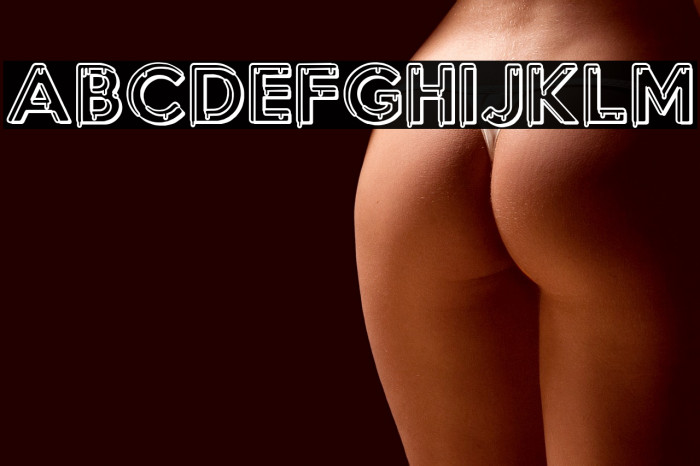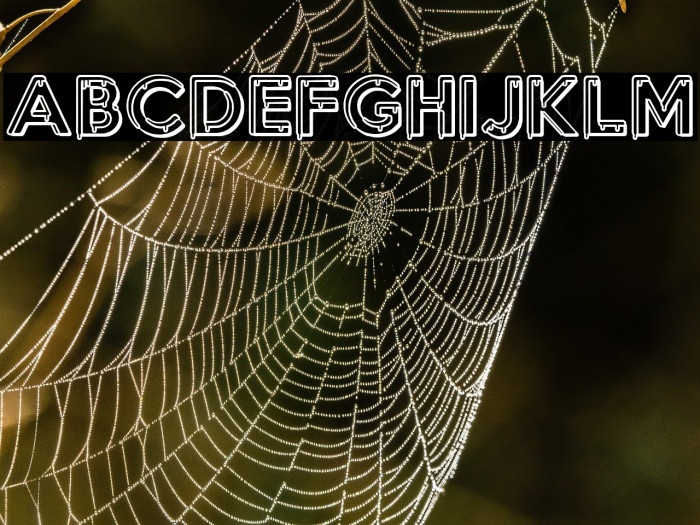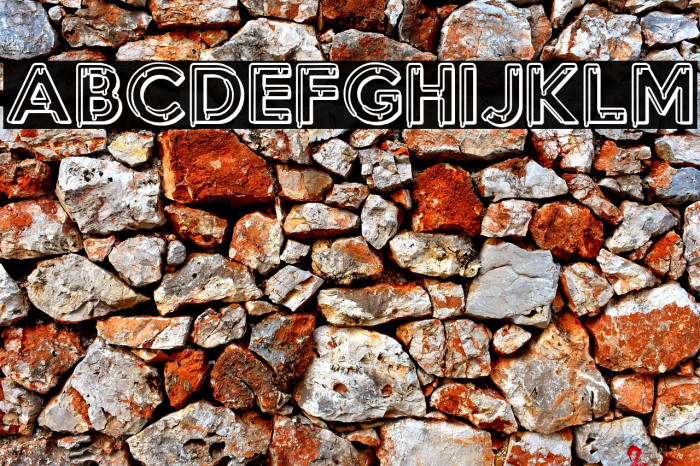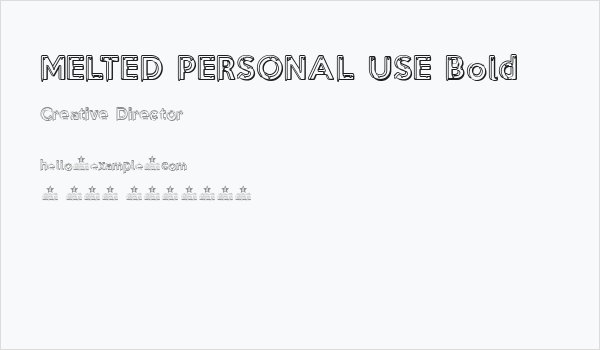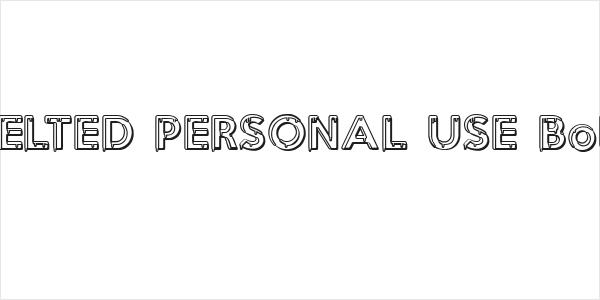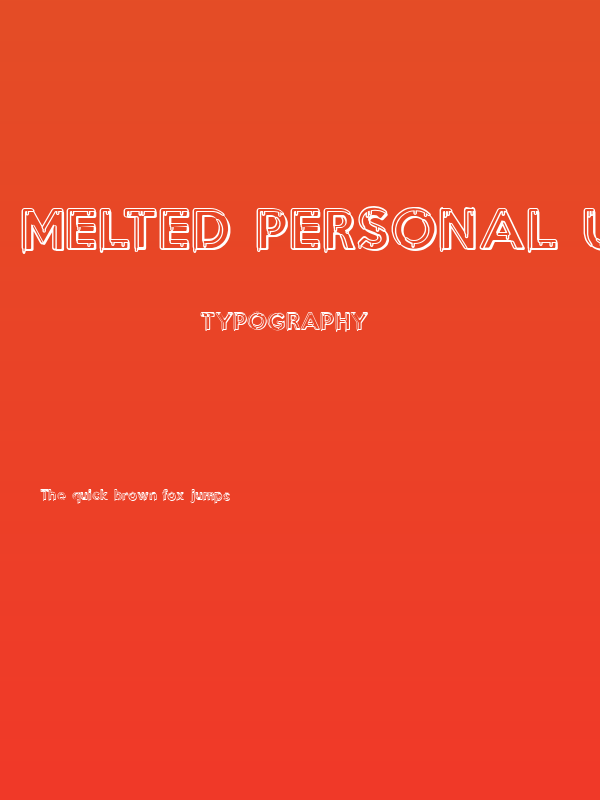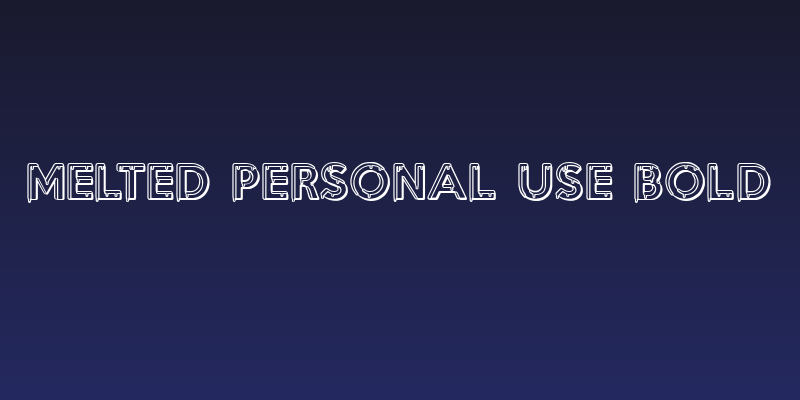
MELTED PERSONAL USE Bold Font
MELTED PERSONAL USE Bold Description
This font features a bold, playful design with a unique outline style that gives the impression of melting or dripping. The letters are uppercase and lowercase, with a consistent thickness throughout, creating a cohesive look. The font has a decorative appearance, making it suitable for eye-catching designs. The characters are well-spaced, ensuring readability while maintaining a distinctive aesthetic. Its boldness and unique style make it ideal for creative projects that require a standout typeface.
| Proposed Projects | Ideal for posters, logos, and creative branding projects that require a bold and playful touch. |